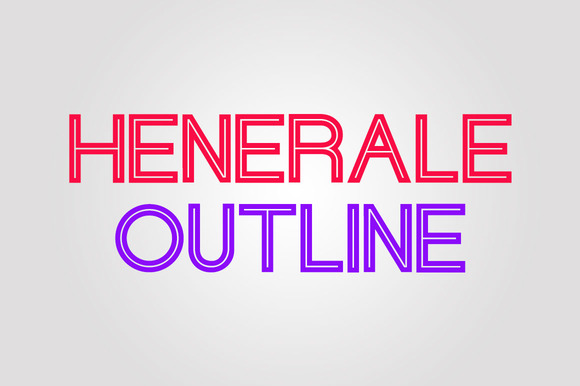
Henerale Outline Font
**Attention-Grabbing Headlines:**
* Unleash Your Creativity with Henerale Outline Font!
* Bold and Edgy: Transform Your Designs with Henerale Outline!
* Add a Touch of Distinction with Henerale Outline's Geometric Charm!
**Compelling Summary:**
Step into a world of design possibilities with Henerale Outline, a geometric outline font crafted to leave a lasting impression. Its sharp lines and distinctive style bring a modern touch to any project, making it a must-have for designers seeking to elevate their work. Whether you're creating captivating headings, designing eye-catching logos, or crafting unique badges, Henerale Outline is the perfect font to add a touch of sophistication and uniqueness.
**Captivating Features:**
* **Bold and Geometric:** Henerale Outline's distinct geometry creates a striking visual impact, adding a touch of boldness to your designs.
* **Striking Headlines:** Make your headlines pop with Henerale Outline's strong presence, ensuring your messages stand out from the crowd.
* **Versatile Design:** From logos and badges to book covers and invitations, Henerale Outline's adaptability makes it suitable for a wide range of design projects.
* **Endless Applications:** Unleash your creativity with Henerale Outline's versatility. Use it for posters, flyers, social media graphics, and more - the possibilities are limitless!
**Emotional Appeal:**
* **Stand Out from the Crowd:** Henerale Outline's distinctive style sets your designs apart, making a memorable impression on your audience.
* **Make a Statement:** Express your individuality and make a bold statement with Henerale Outline's unique geometric charm.
* **Ignite Your Creativity:** Let Henerale Outline spark your imagination and inspire fresh design ideas that leave a lasting impact.